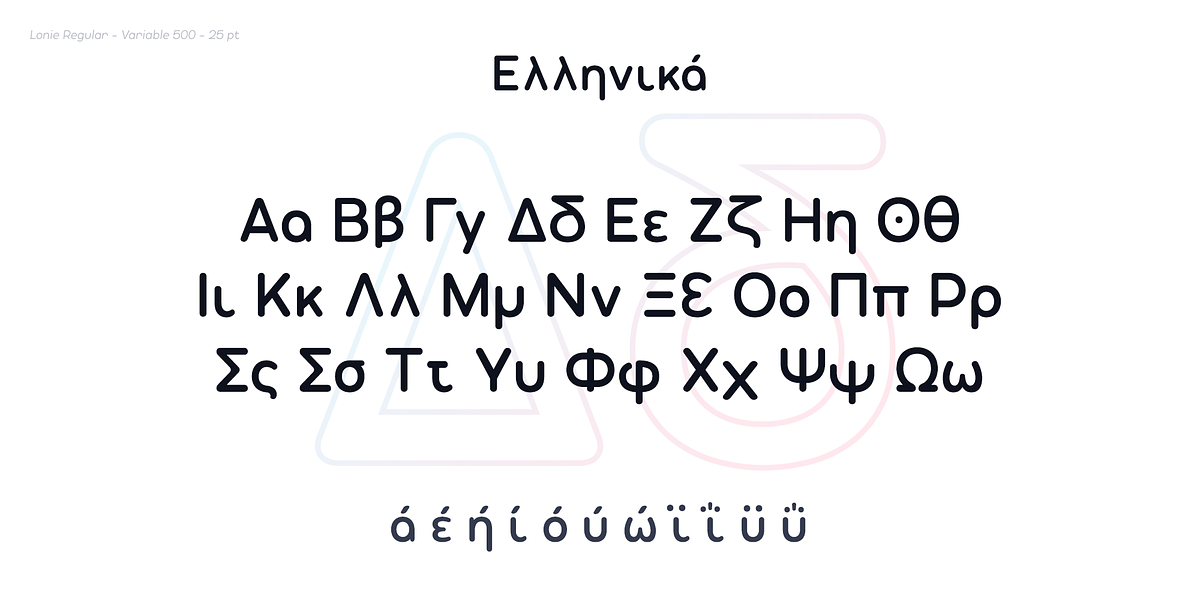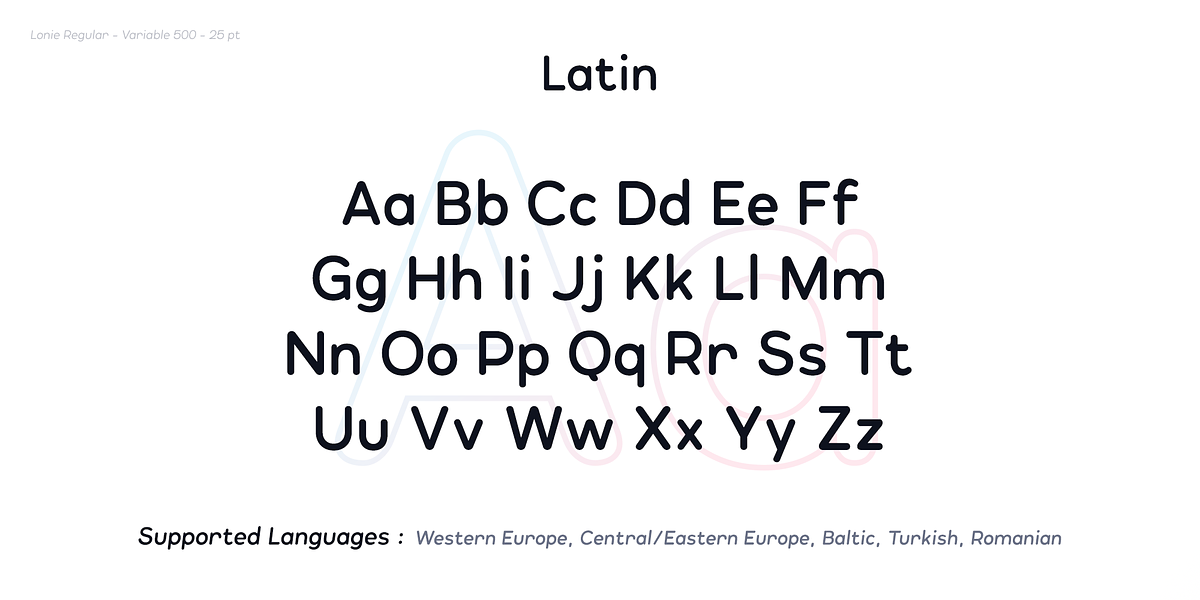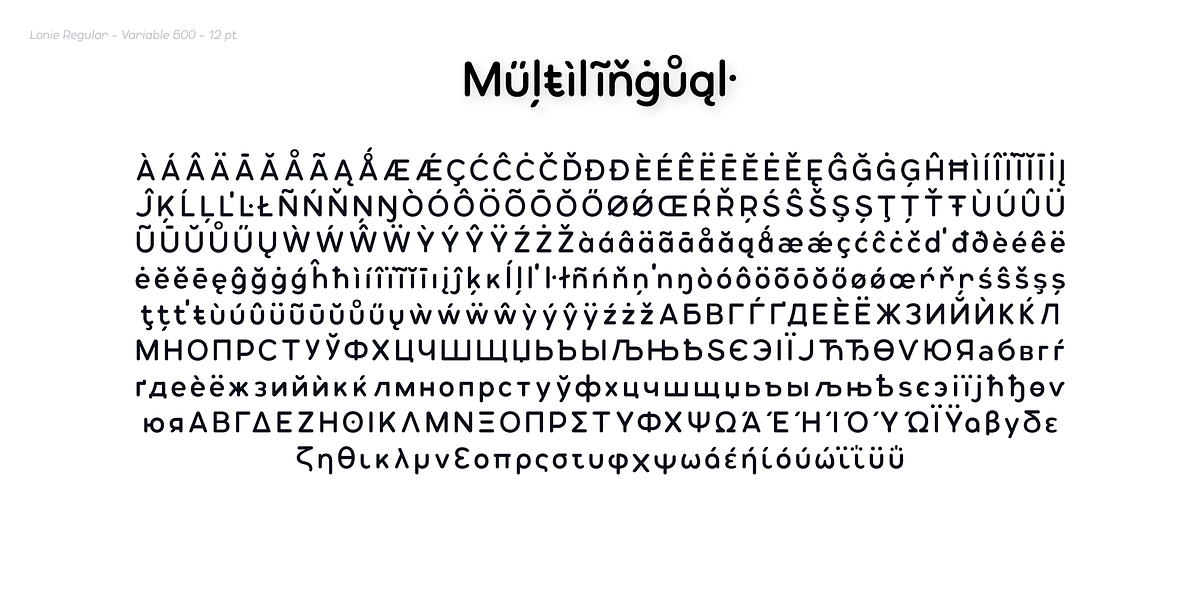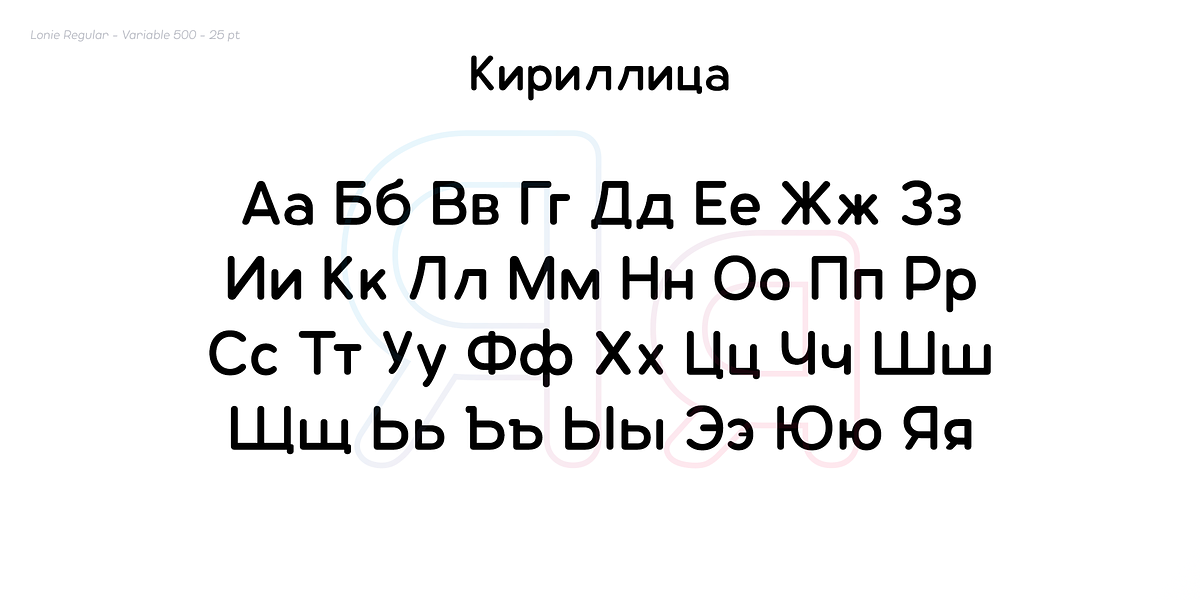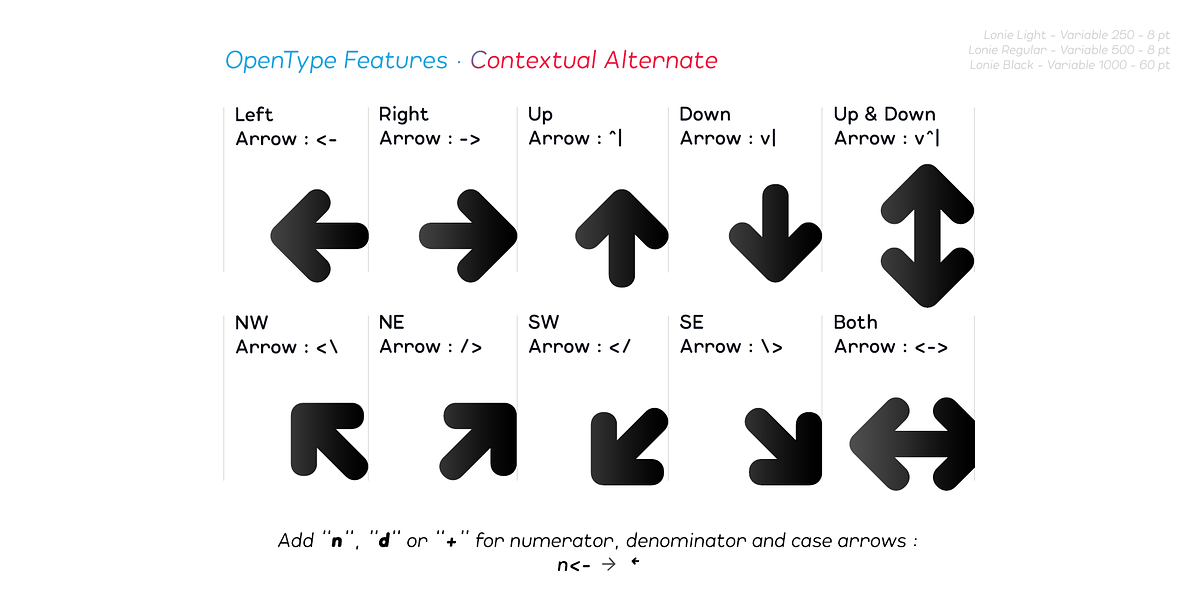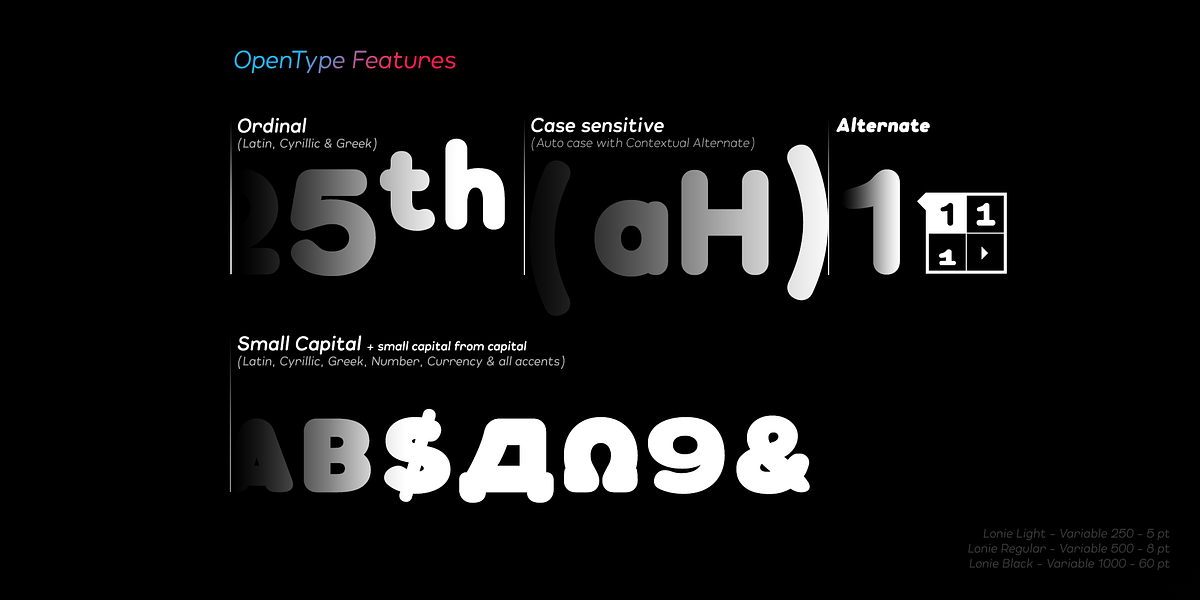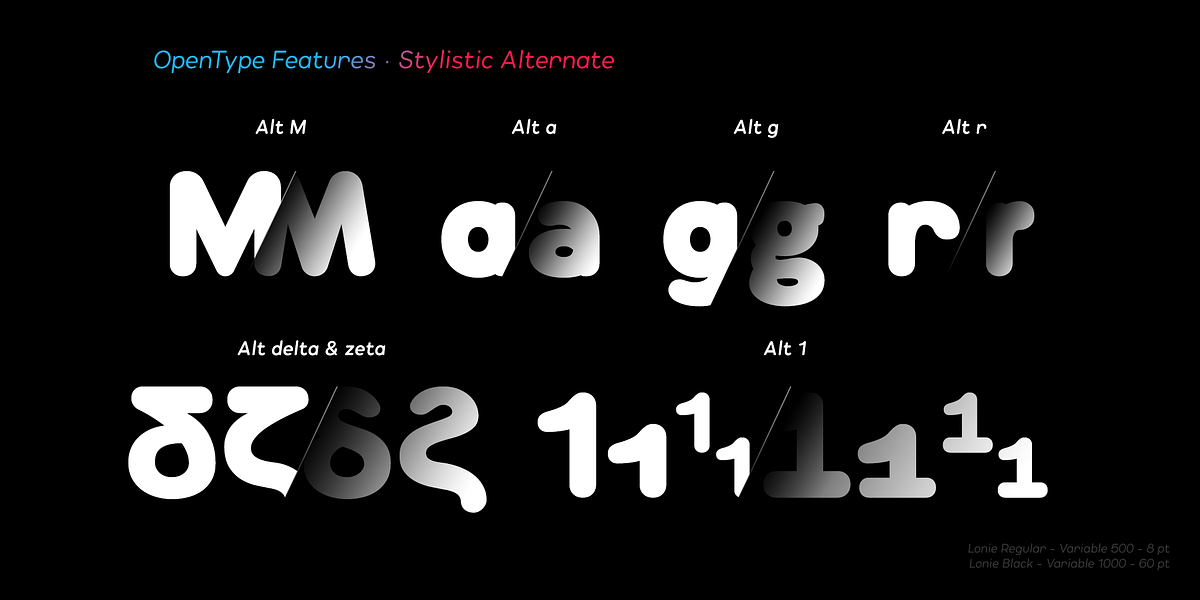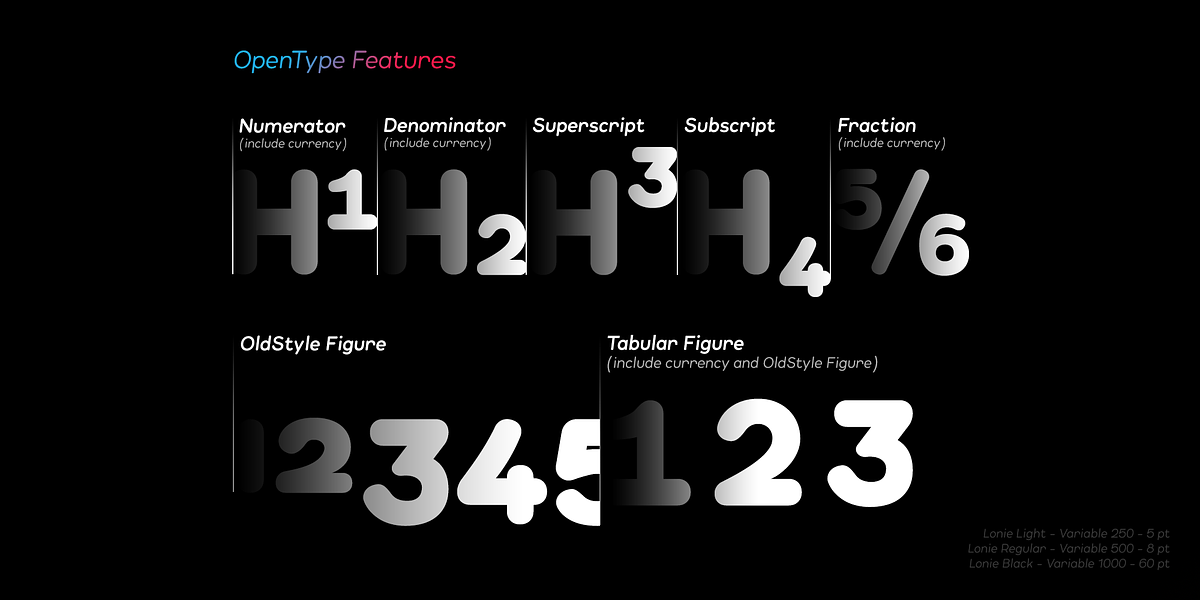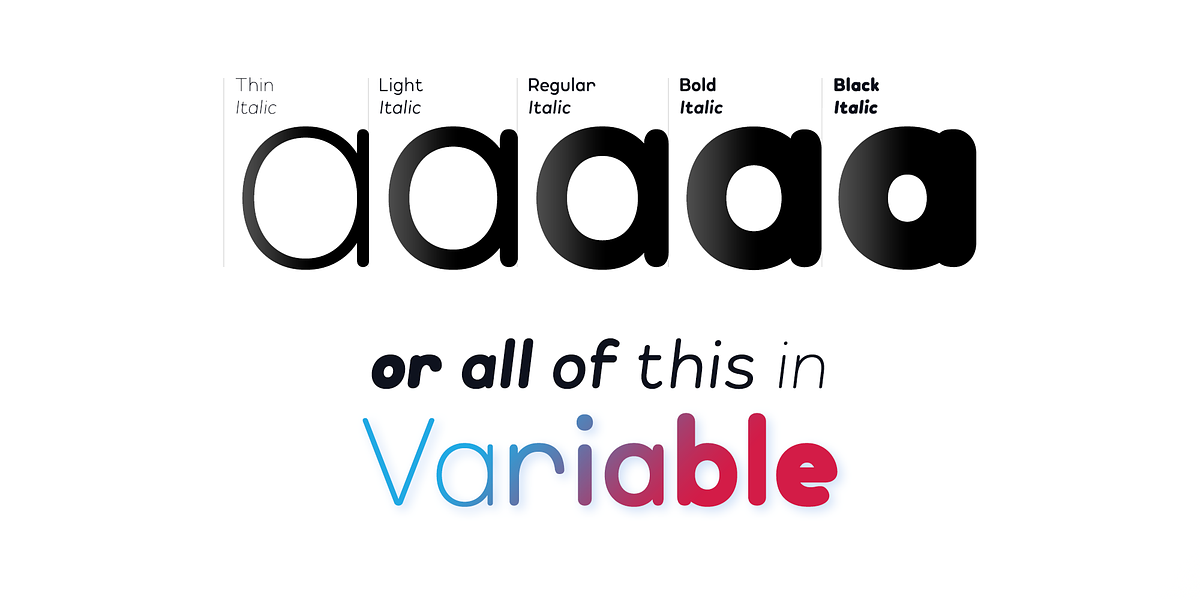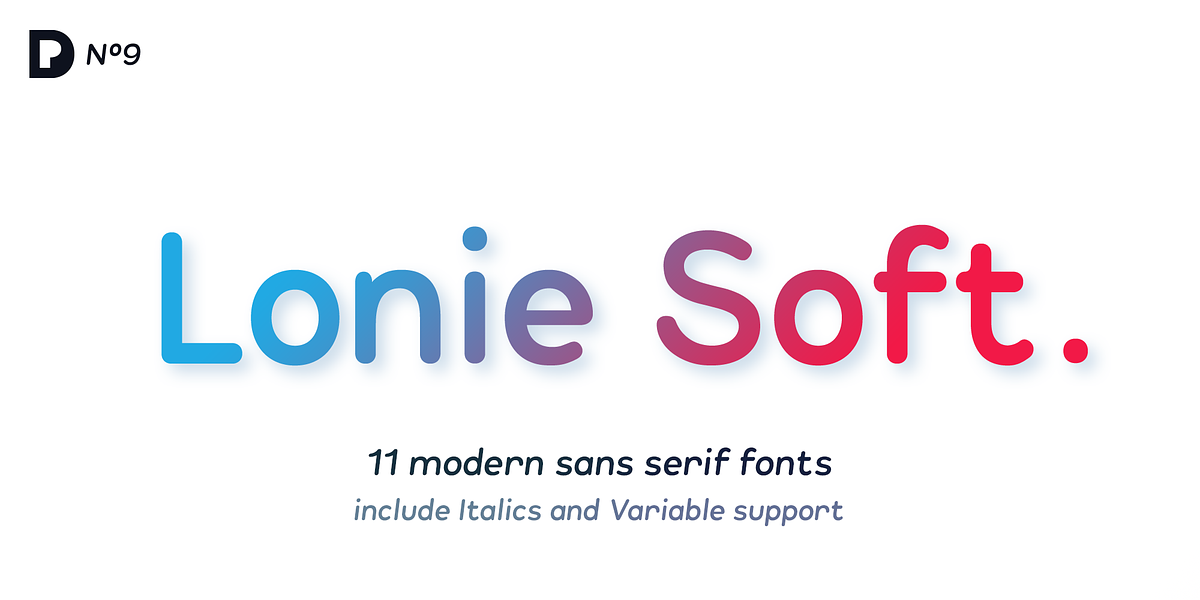
Lonie Soft
Lonie Soft is a contemporary sans serif typeface characterized by its gentle rounded corners. Available in a range of weights from thin to black, it also includes italic styles and a variable font version for maximum design flexibility. The extensive character set covers Latin, Cyrillic, and Greek alphabets, making it suitable for diverse projects. Lonie Soft's 15 OpenType features, including fractions, superiors/inferiors, small capitals, and contextual alternates, empower designers to achieve refined typographic effects. Its blend of elegance and approachability makes it well-suited for headlines, branding materials, body text, and more.